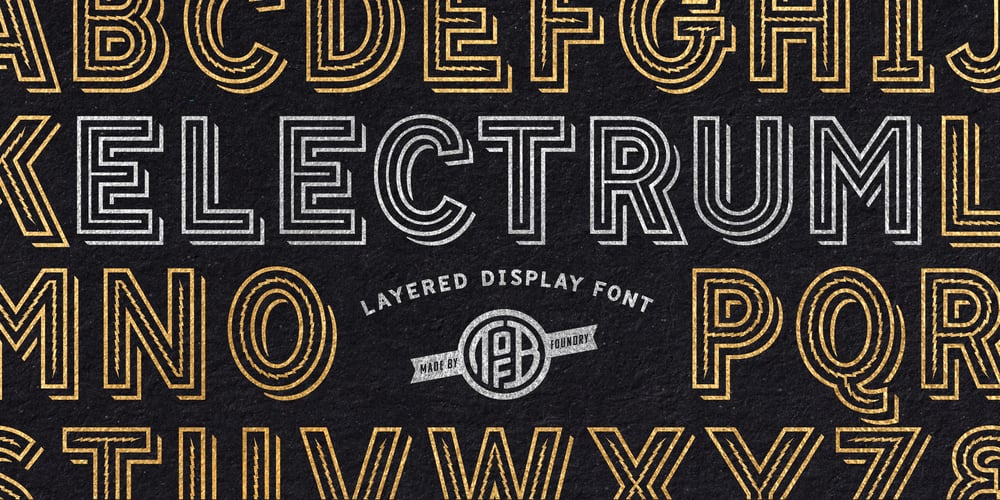
Electrum Font Family was designed by Eric Stevens and published by Tower of Babel. Electrum contains 6 styles and family package options. Electrum is an all-caps layered font that presents a plethora of permutations for any use. Inspired by handlettered signage of the 1950’s and 60’s, Electrum has one foot in the past and one in the present. Use a single weight, or mix and match weights to create a number of interesting and eye-catching combinations. The “lightning” weight is especially interesting and adds a bit of electricity to any design. Perfect for logos, packaging designs, or poster designs. Whatever the usage, Electrum can add some spark to your project!